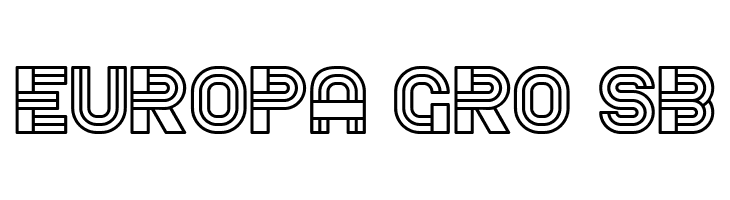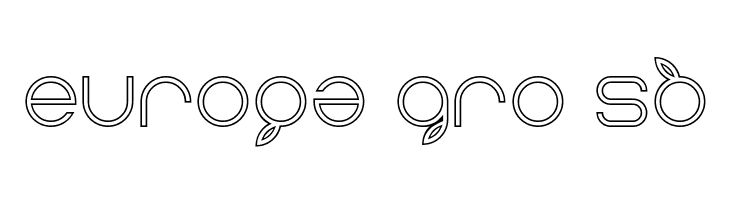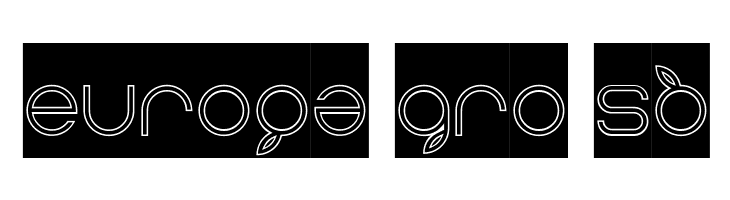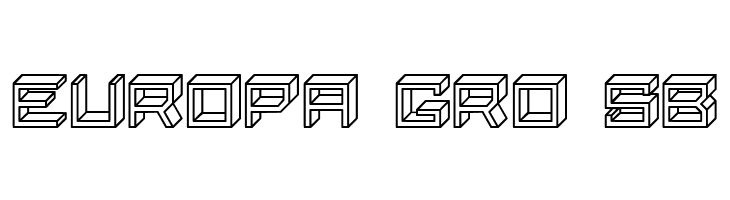
( Fonts by Vladimir Nikolic ) A bold, hollow, and three-dimensional decorative font with a modern look. Download 64 Downloads@WebFont
( Fonts by Vladimir Nikolic ) A geometric, hollow font with a bold and modern design. Download 95 Downloads@WebFont
( Fonts by Vladimir Nikolic ) A playful, geometric font with hollow, circular elements. Download 83 Downloads@WebFont
( Fonts by Vladimir Nikolic ) A playful, decorative font with hollow, spiral-like elements resembling snail shells. Download 104 Downloads@WebFont
( Fonts by weknow ) A modern, hollow font with decorative, nature-inspired elements. Download 67 Downloads@WebFont
( Fonts by weknow ) A modern, hollow, and decorative font with unique leaf-like elements. Download 55 Downloads@WebFont
( Fonts by Vladimir Nikolic - https://www.creativefabrica.com/product/educated-deers/ref/144265/ - Personal-use only. For commercial use please contact owner. ) A bold, geometric font with a hollow, 3D block design. Download 46 Downloads@WebFont
( Fonts by Vladimir Nikolic - https://www.creativefabrica.com/product/educated-deers/ref/144265/ - Personal-use only. For commercial use please contact owner. ) A geometric, hollow font with a modern, interconnected design. Download 45 Downloads@WebFont